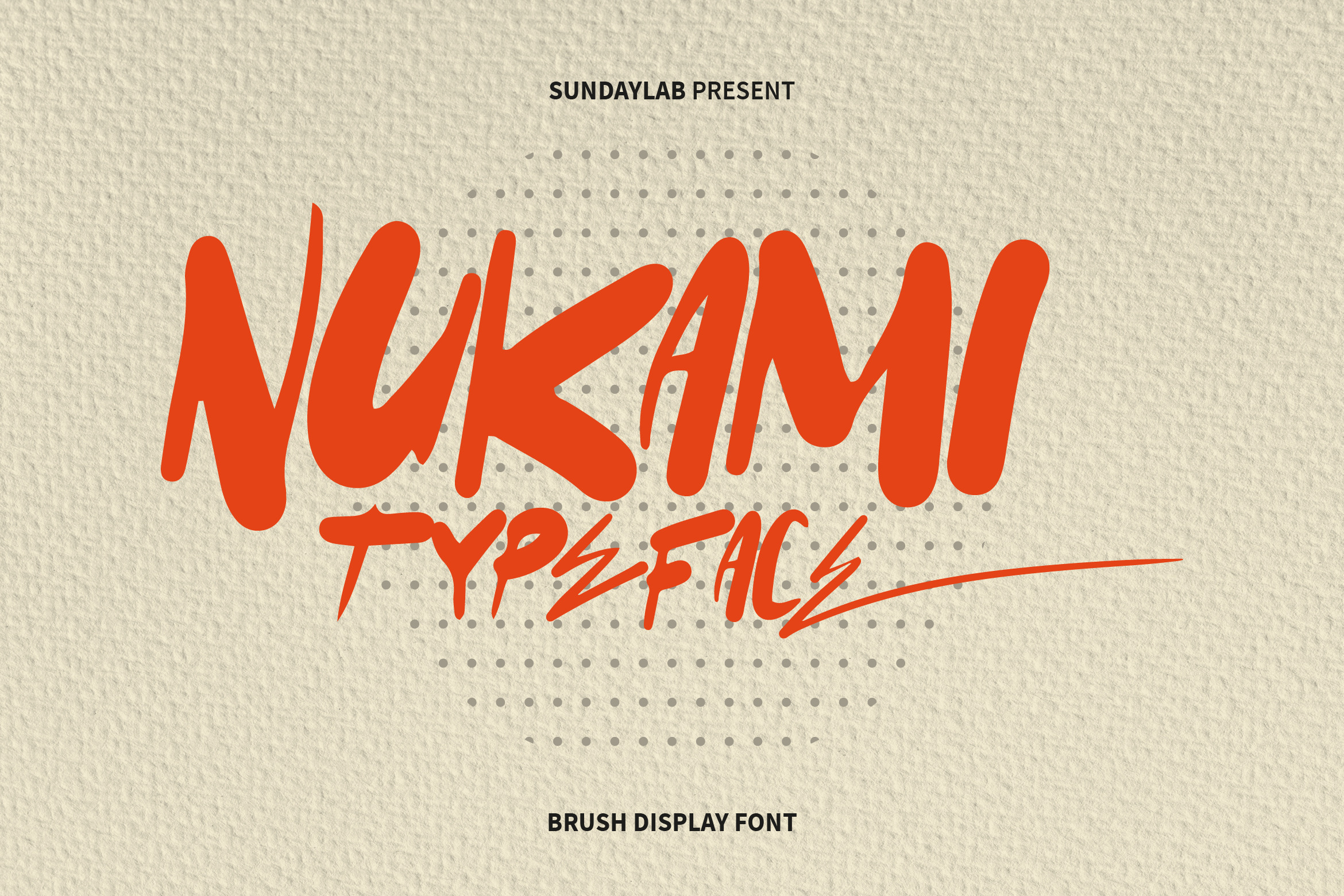
Nukami Display Typeface
Introducing
Nukami Display Typeface
Nukami is a display font that can help display messages in the designs you create. With its Brush character, it is suitable for you to use on posters, flyers, magazine covers, books, vinyl, CDs, and many other media.